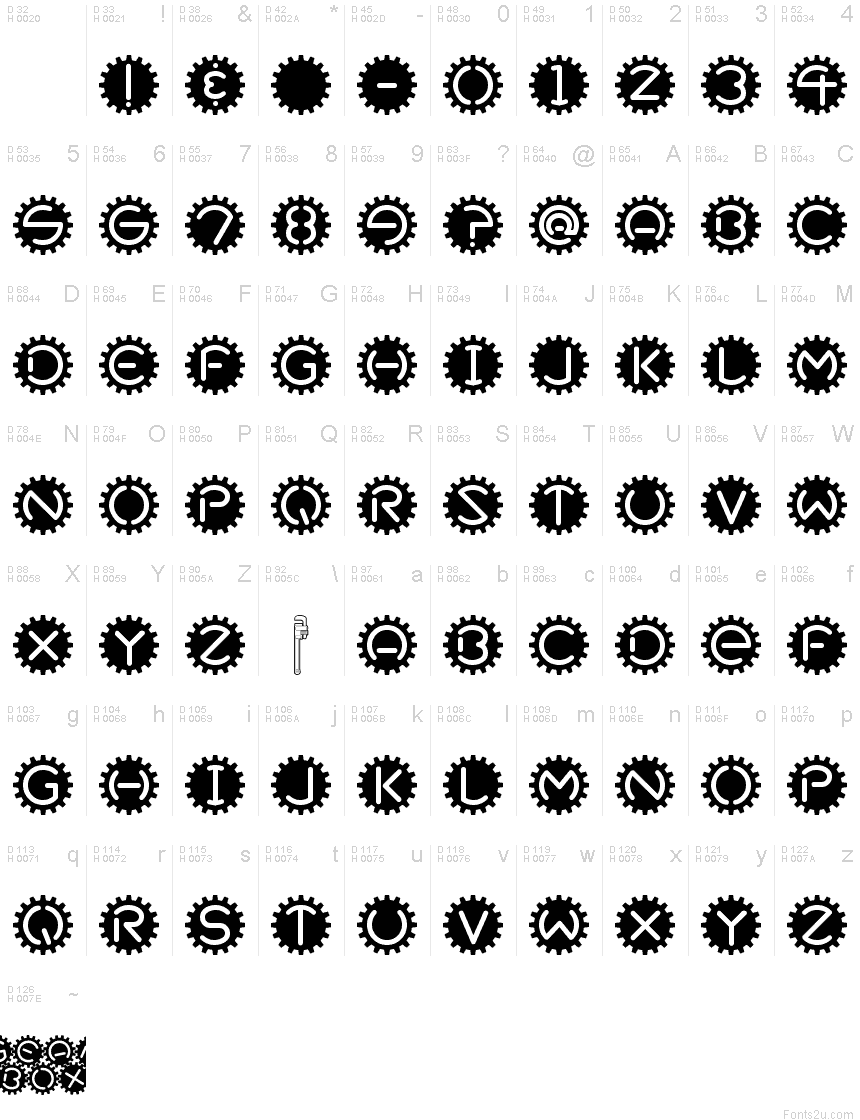
GearBox by Daniel Gauthier of GautFonts is a free techno display font shaped by cogwheel silhouettes. Rounded letters sit inside toothed circular frames, making each form a compact mechanical emblem. The repeated gears give the lettering a playful machine-shop character.
It is convincing for workshop branding, tool packaging, and engineering event graphics. Game interfaces can also use its industrial motif as part of the screen design. In publishing, it can turn a technology magazine title into an illustrated mechanism.